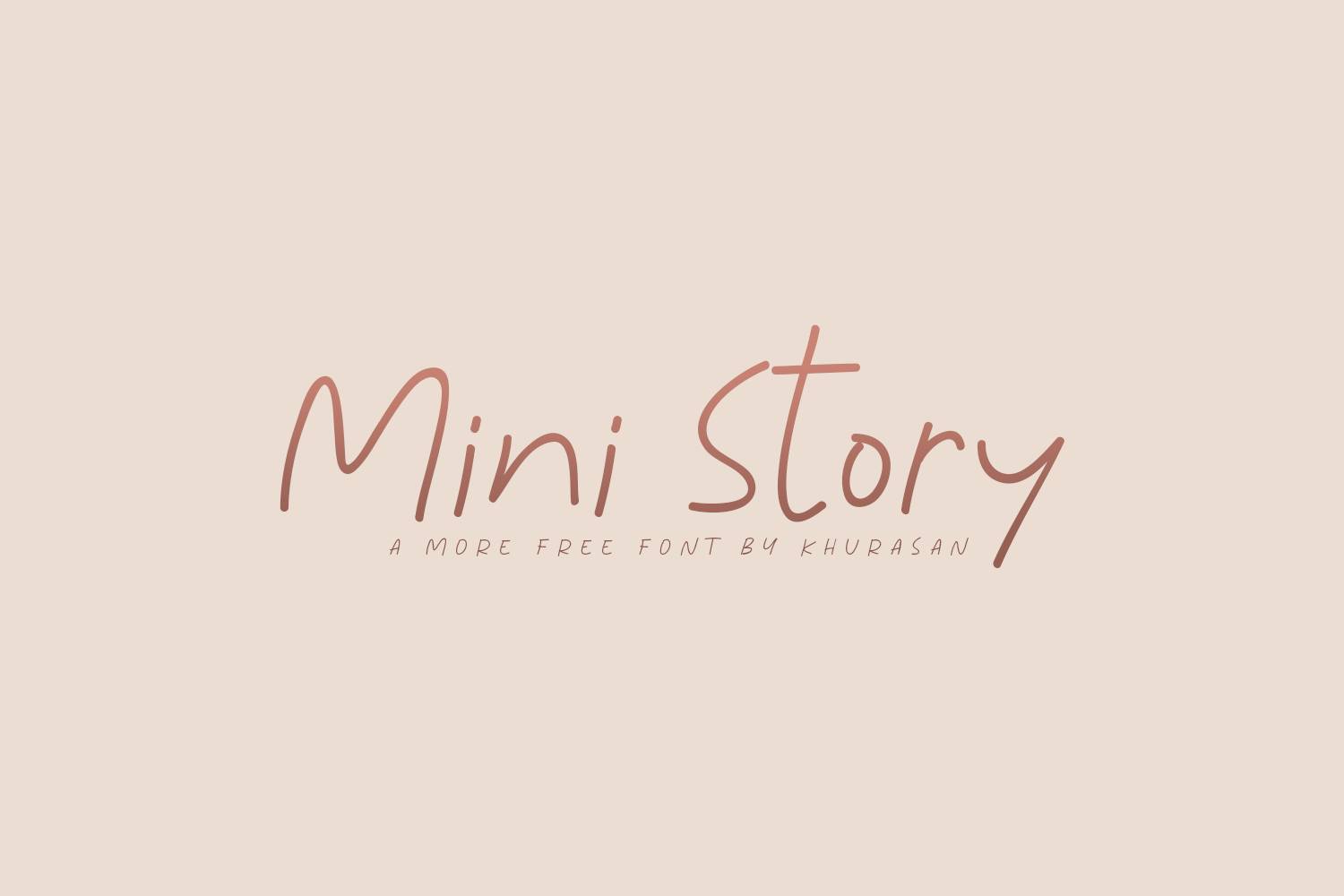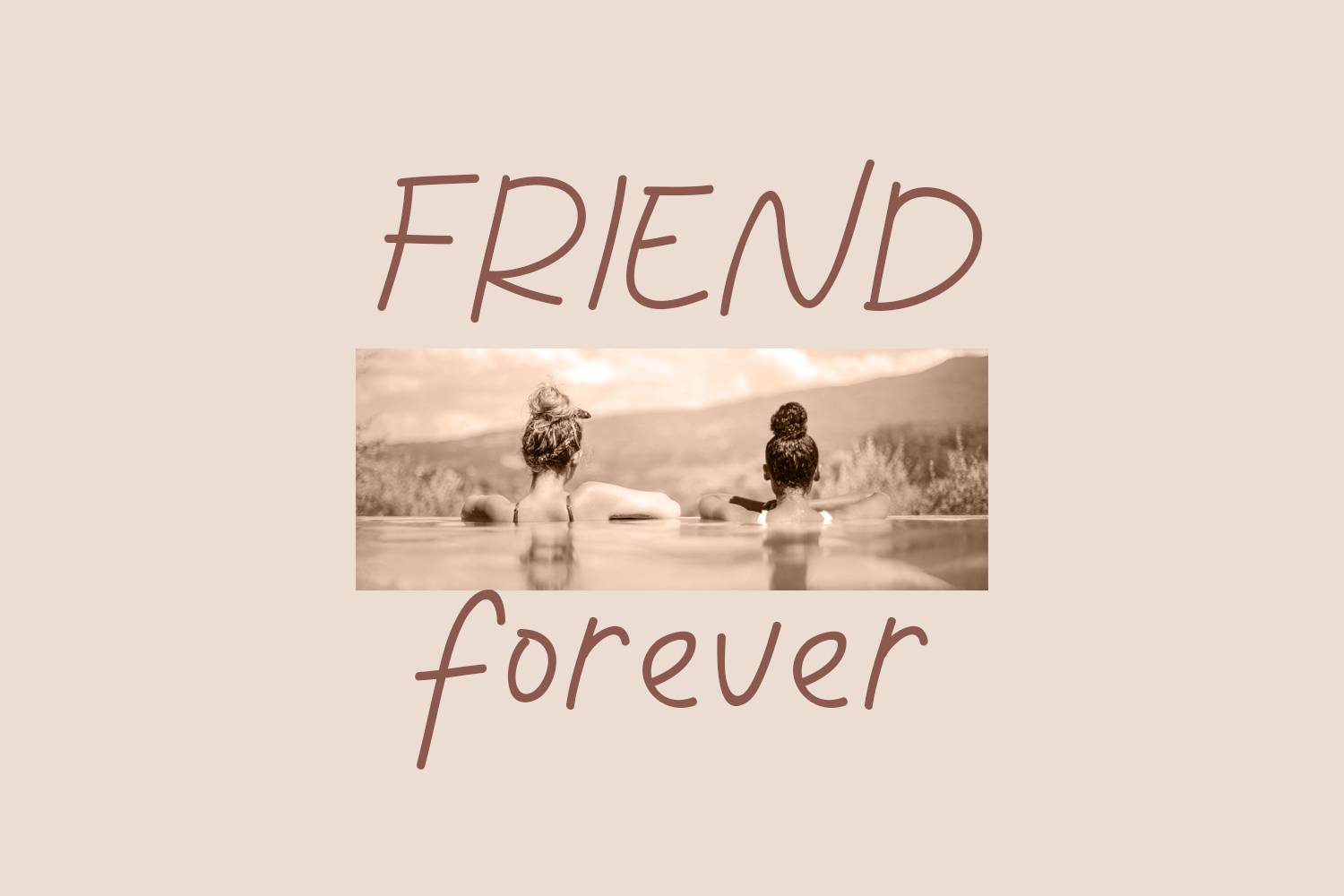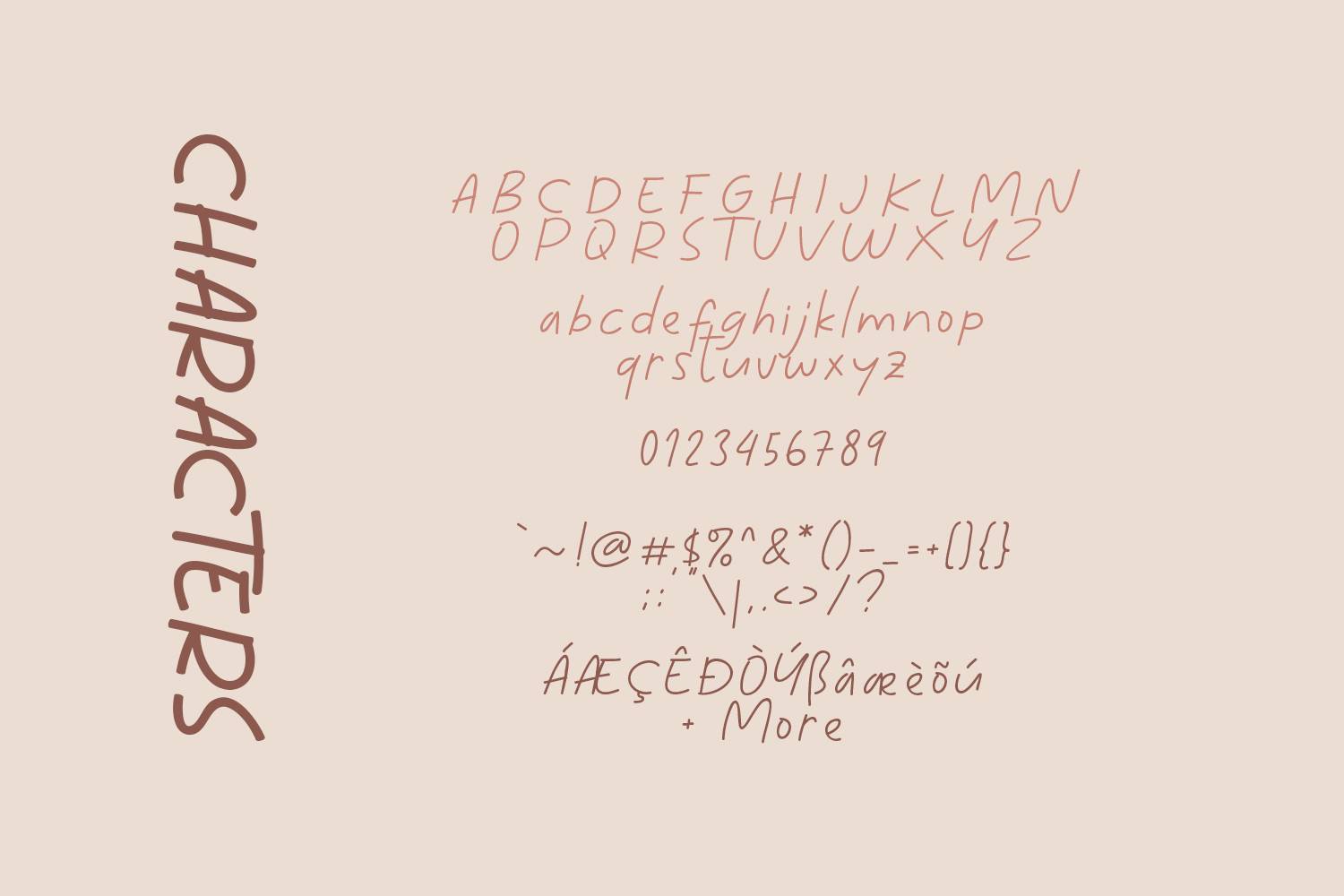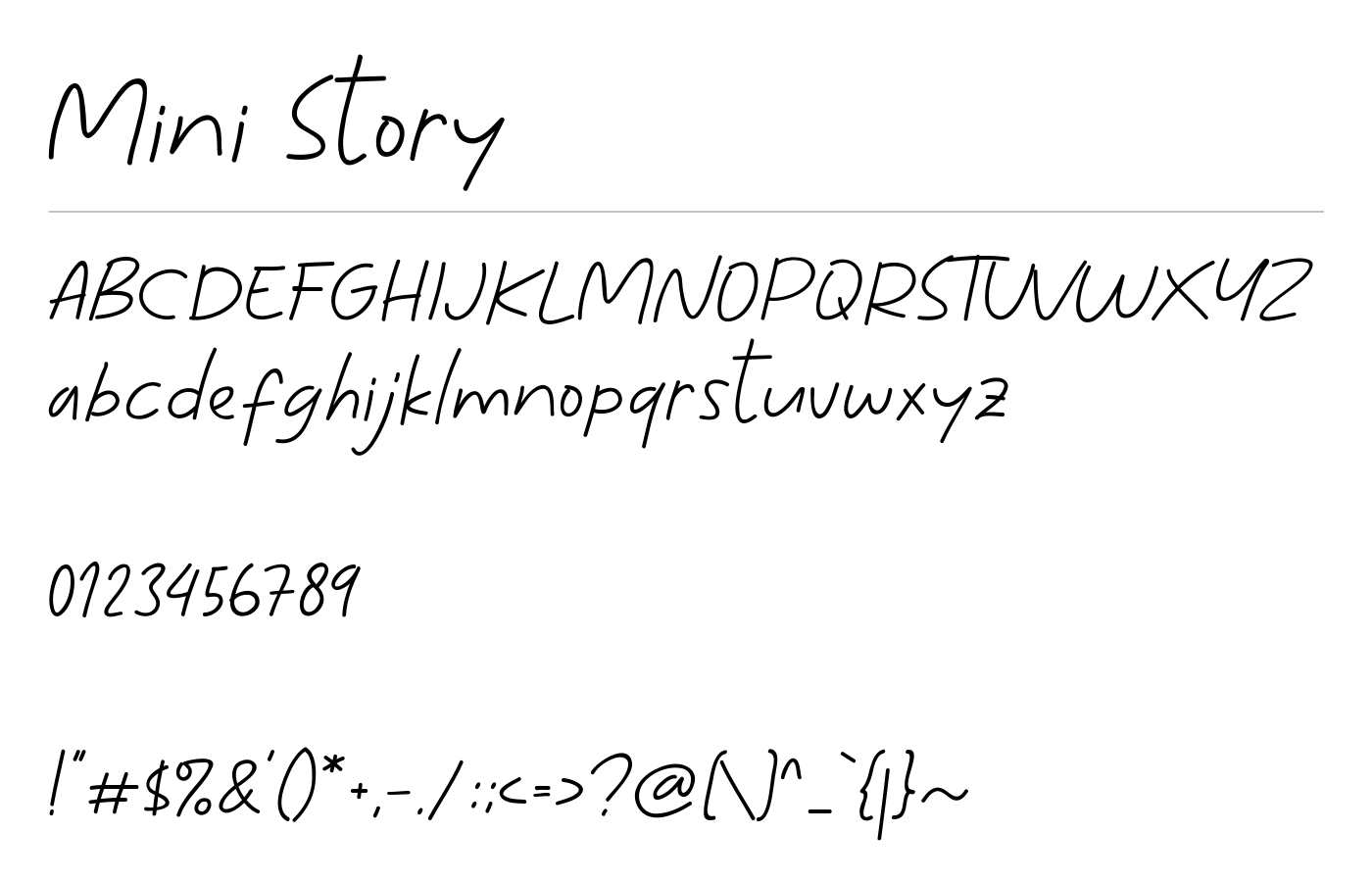
Mini Story Font is a playful, casual handwritten sans serif with a light weight and airy, slightly irregular letterforms that feel personal and approachable. Its natural, flowing strokes and balanced x-height make it ideal for informal designs, such as children’s books, friendly branding, or creative social media graphics. This font works best where a warm, human touch is needed to convey creativity and friendliness.
Mini Story Font
About Mini Story Font
| Font family | Mini Story Font |